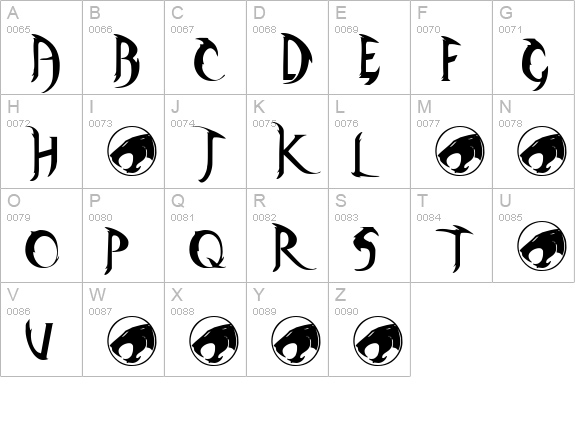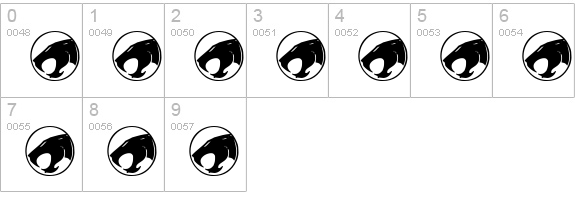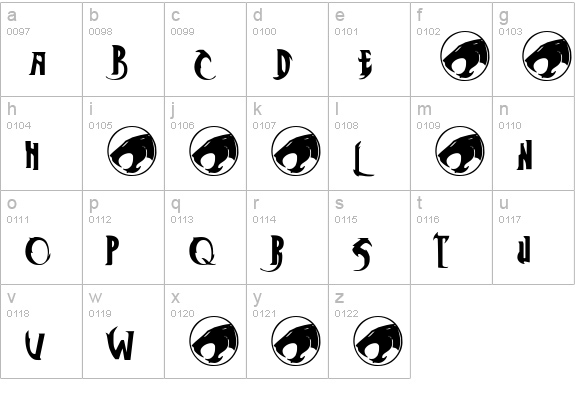
ThunderCats Font Details
Introducing ThunderCats font, a captivating and electrifying typeface that will bring a powerful and adventurous touch to your designs. This unique font embodies the spirit of the iconic ThunderCats franchise, combining sleek lines with a bold presence that commands attention. With ThunderCats font, you can unleash your creativity and transport your audience to the thrilling world of these legendary heroes. Whether you are designing a logo, creating eye-catching posters, or crafting captivating headlines, this font will add a touch of excitement and energy that will leave a lasting impression. What makes ThunderCats font even more extraordinary is that it is freely available to download at FontsMarket.com. Yes, you heard that right! This stunning font can be yours without spending a dime, allowing you to elevate your designs without breaking the bank. So, why wait? Embrace the power of ThunderCats font and take your designs to new heights. Download it today from FontsMarket.com and embark on a creative journey that will leave a thunderous impact on your audience.